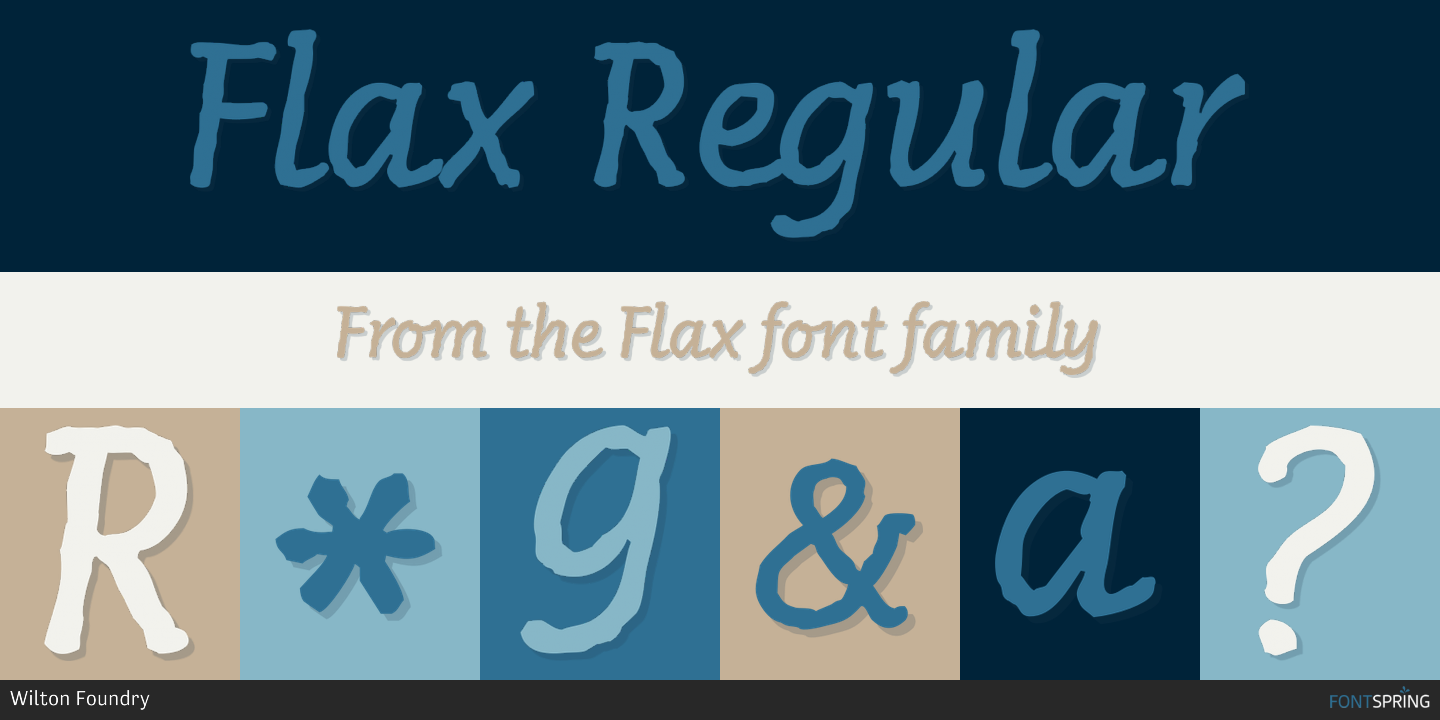
Flax
Flax is a hand drawn font published by Wilton Foundry.
Flax Regular lives in a somewhat unusual space… it is not a normal “handwriting” font, nor is it a formal script, or a rounded italic. Flax is a slightly more formal handwriting script that is extremely legible and useful- it can stretch from invitations to packaging, to menus, to brochures to ads.
The rough hand-drawn finish gives Flax some of its unique character. This is almost unnoticeable in smaller point sizes while clearly visible in display sizes. While Flax is slightly formal, it has a very friendly presence - mainly from the unpretentious rounded characters and rough finish.